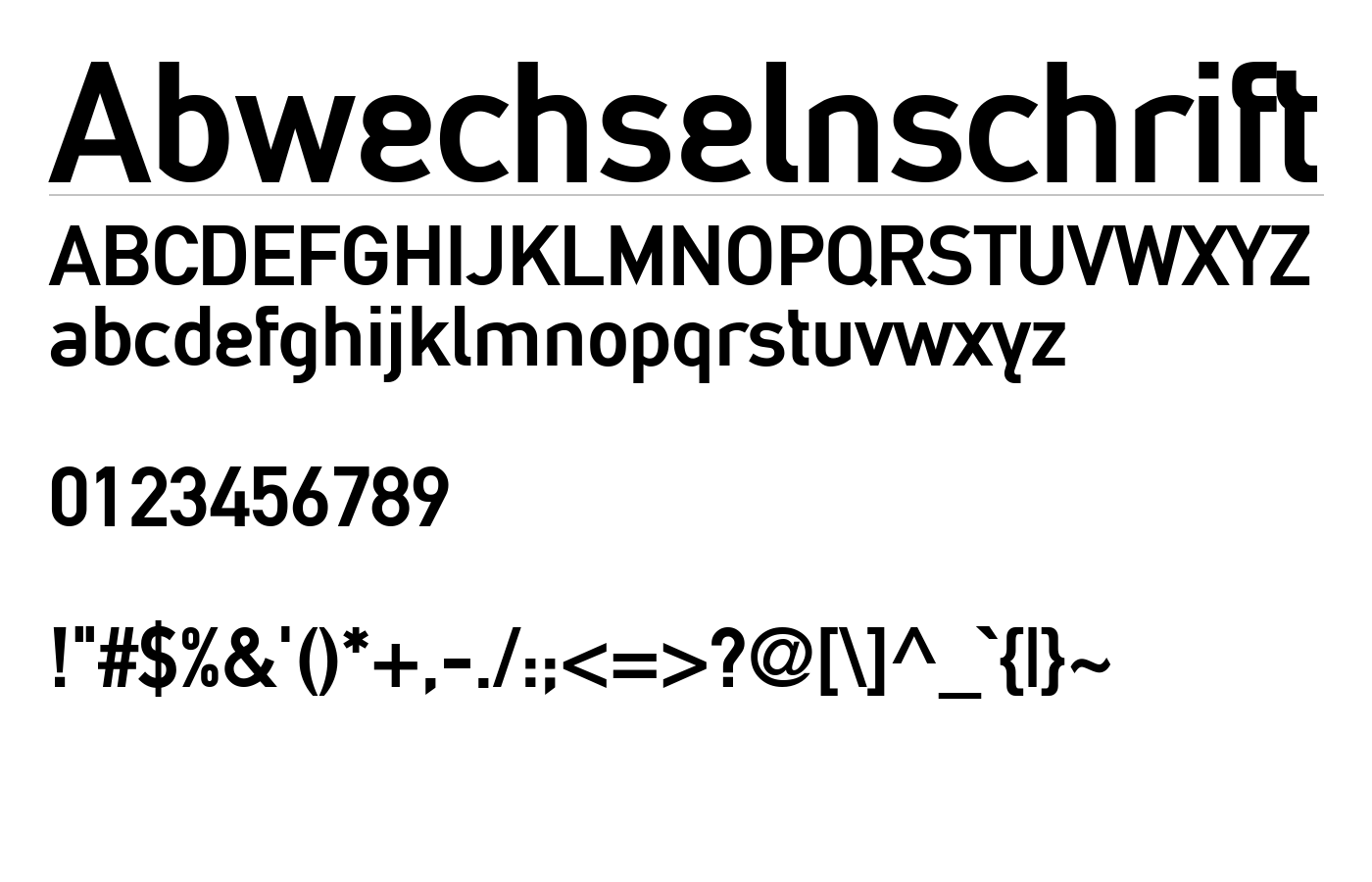
Abwechselnschrift is a clean, modern sans serif font with a slightly condensed width and medium weight that offers excellent readability. Its unique letterforms, such as the single-story lowercase 'a' and distinctive tails on characters like 'Q' and 'g', give it a contemporary, slightly technical feel. This font works well for branding, editorial design, and digital interfaces where clarity and a modern aesthetic are key.
Abwechselnschrift Font
About Abwechselnschrift Font